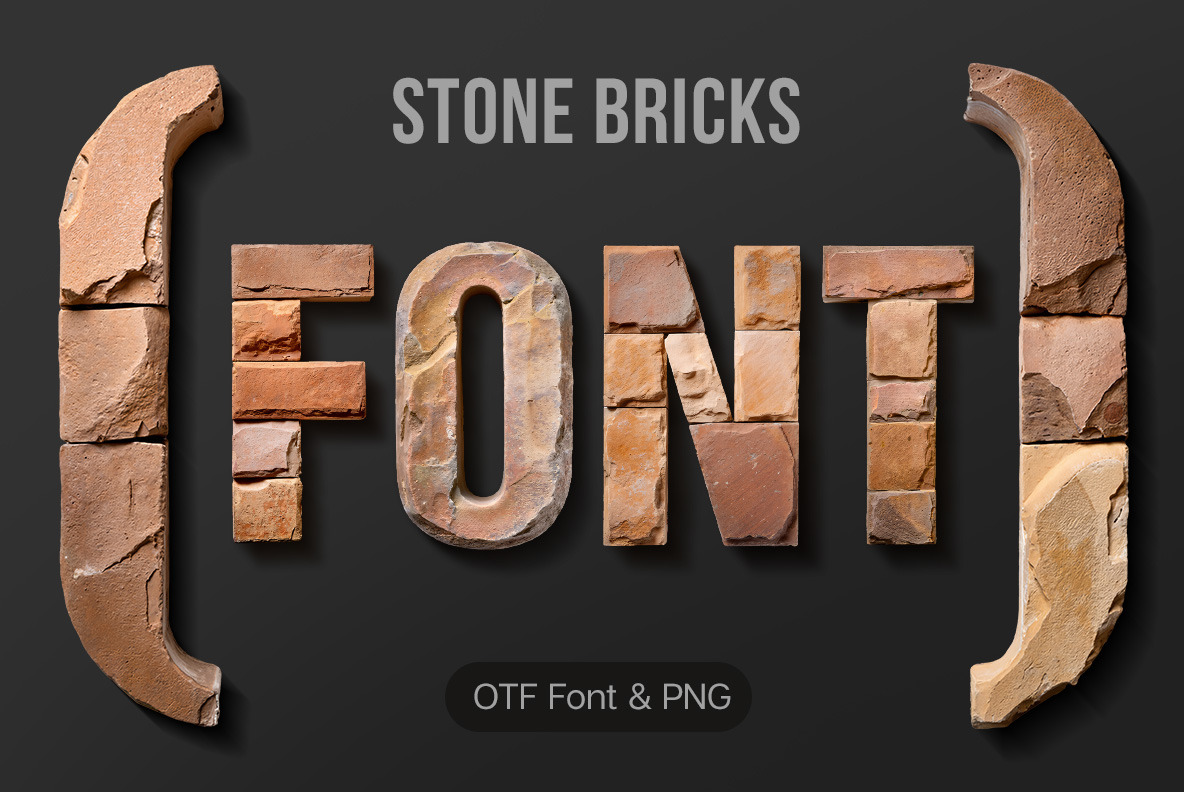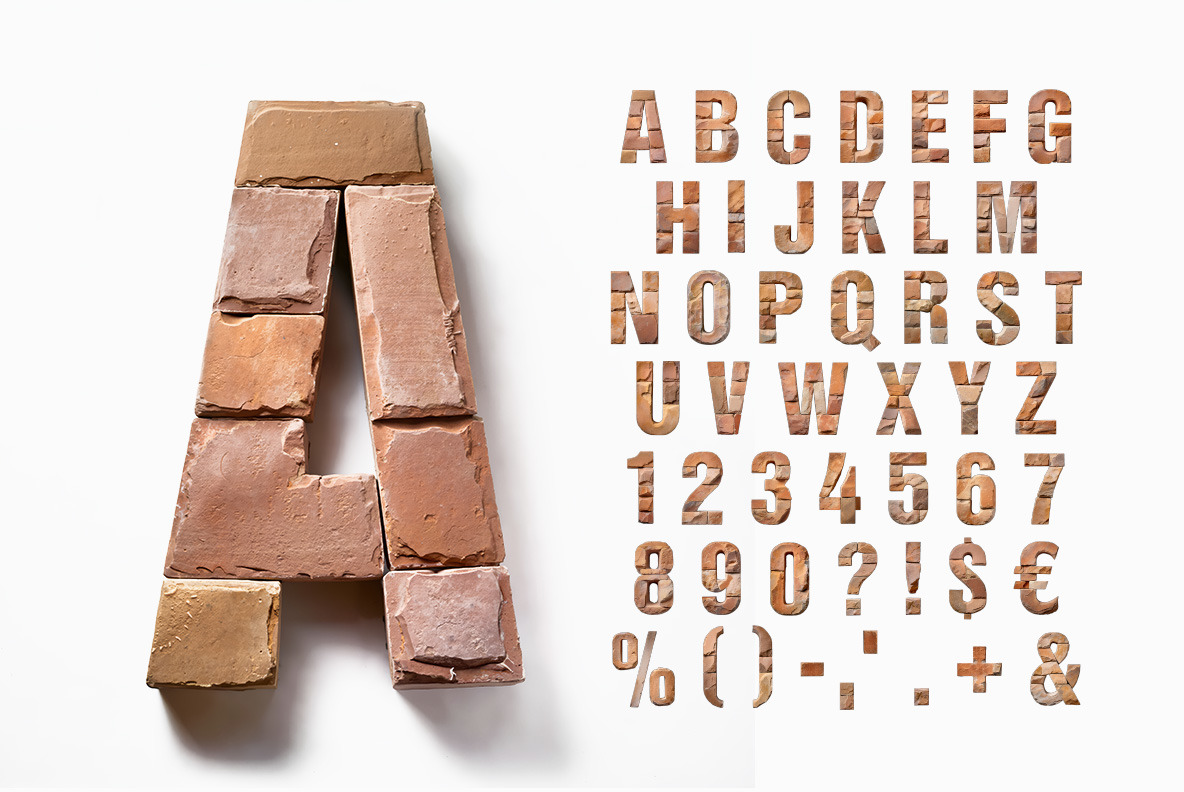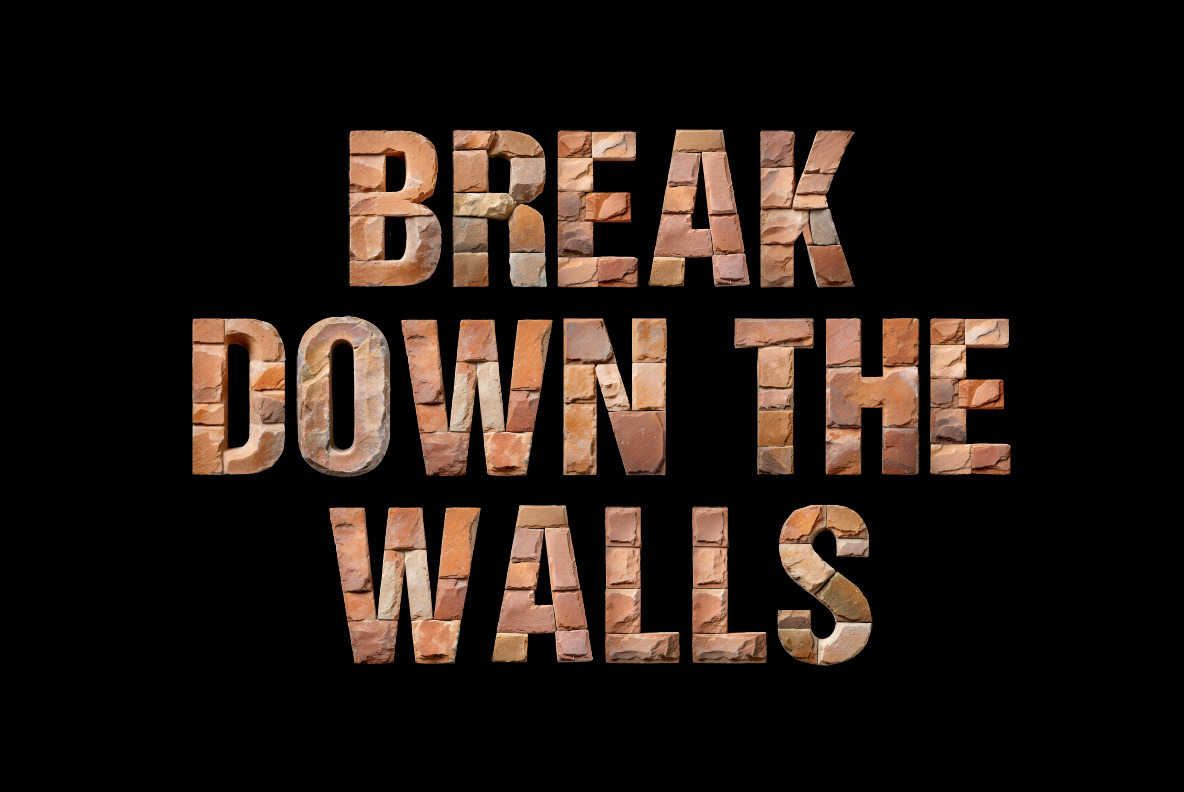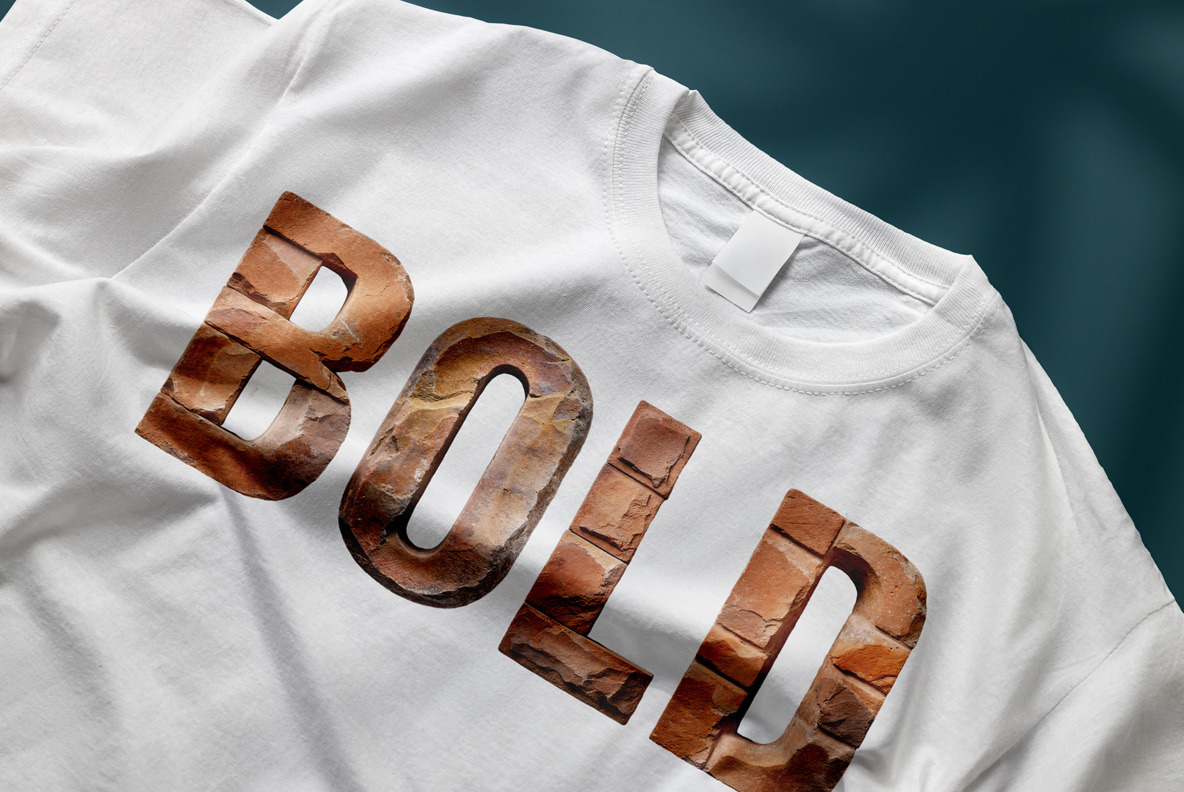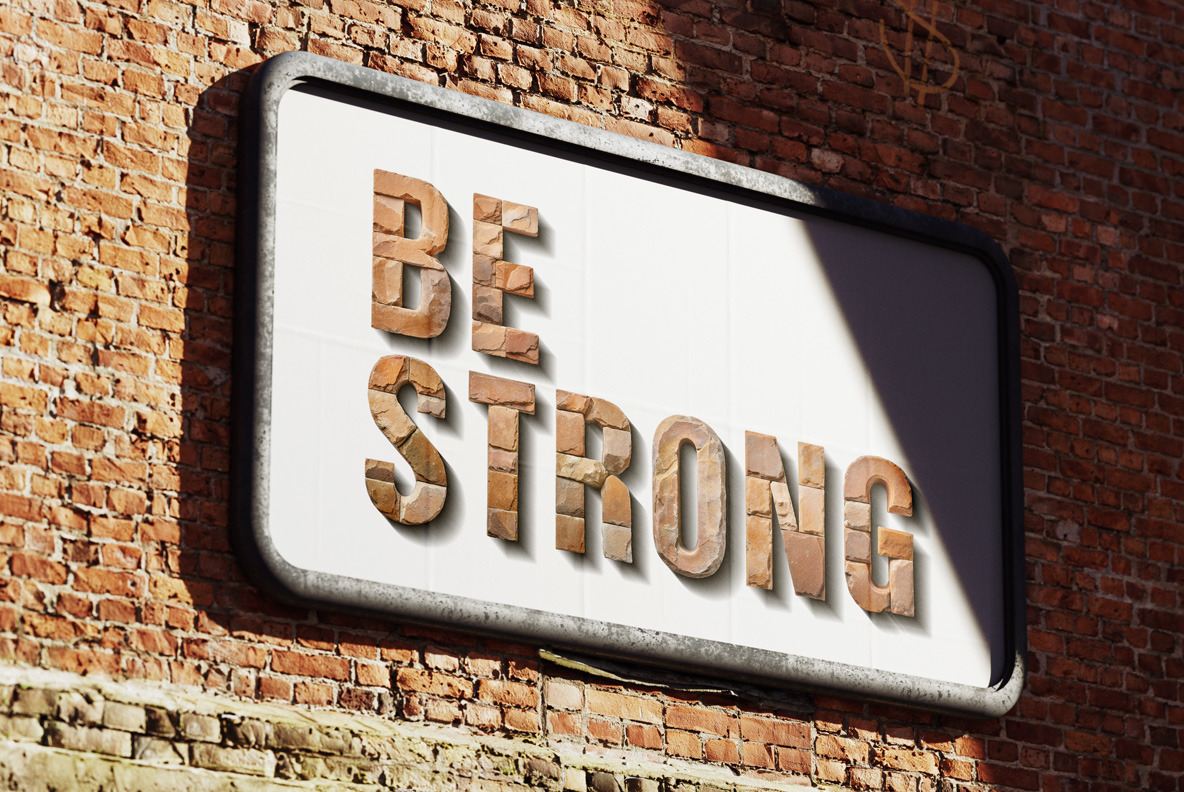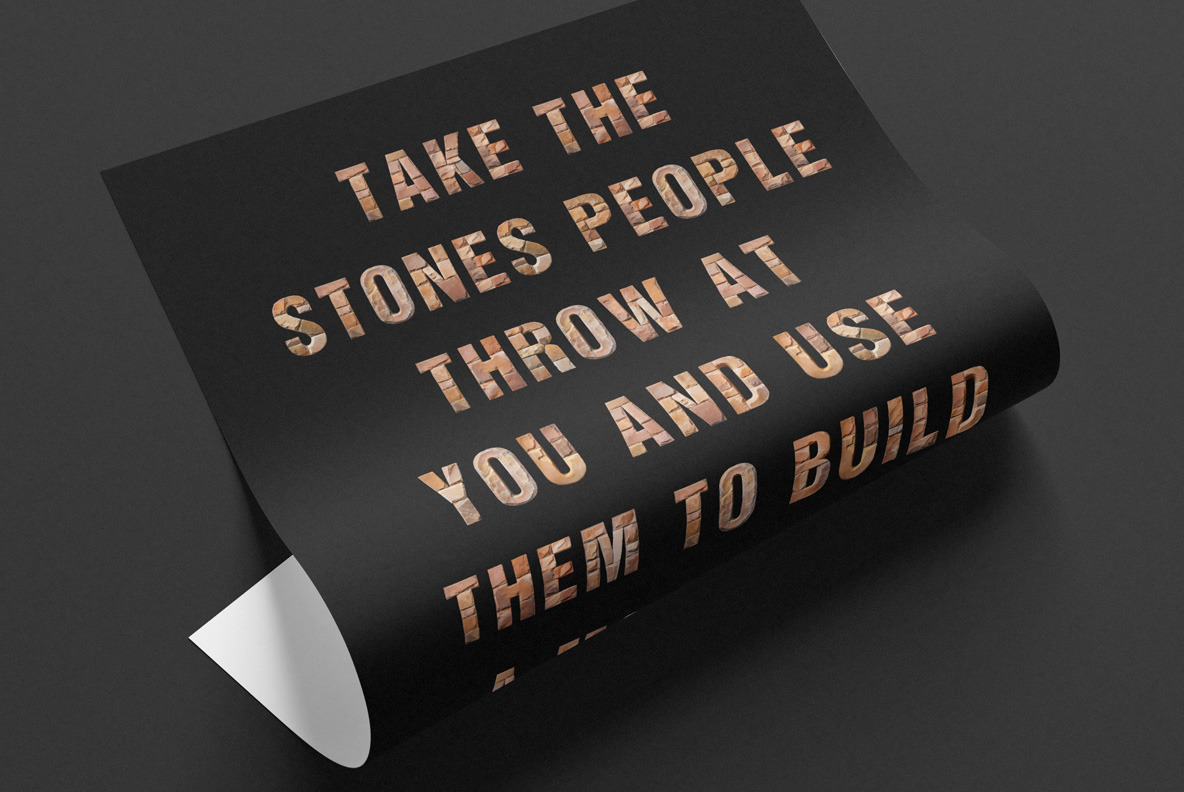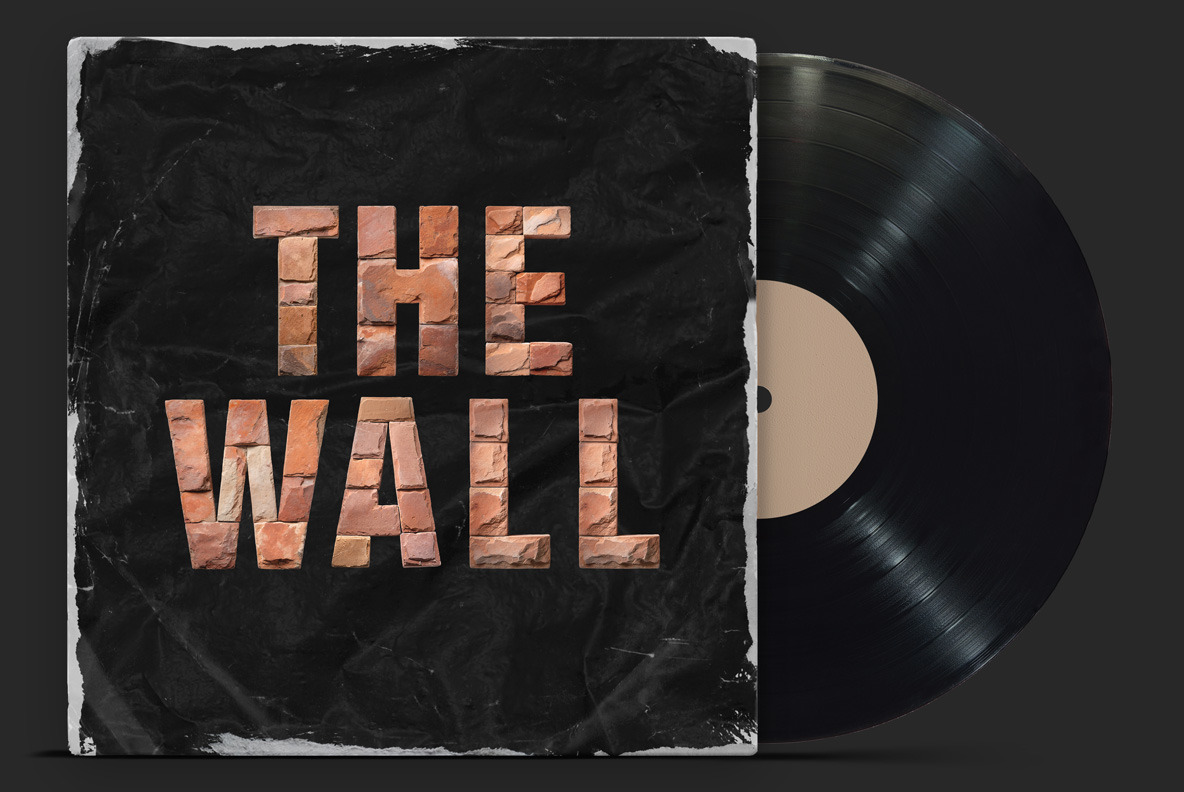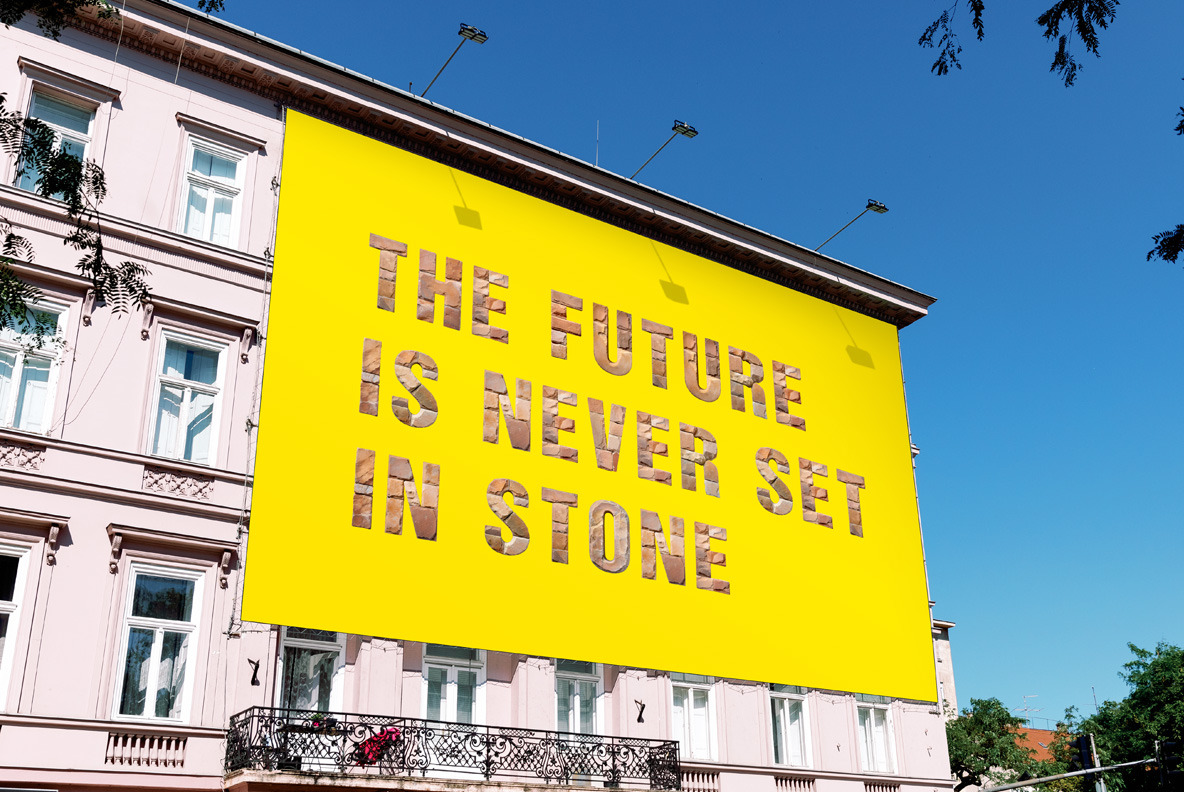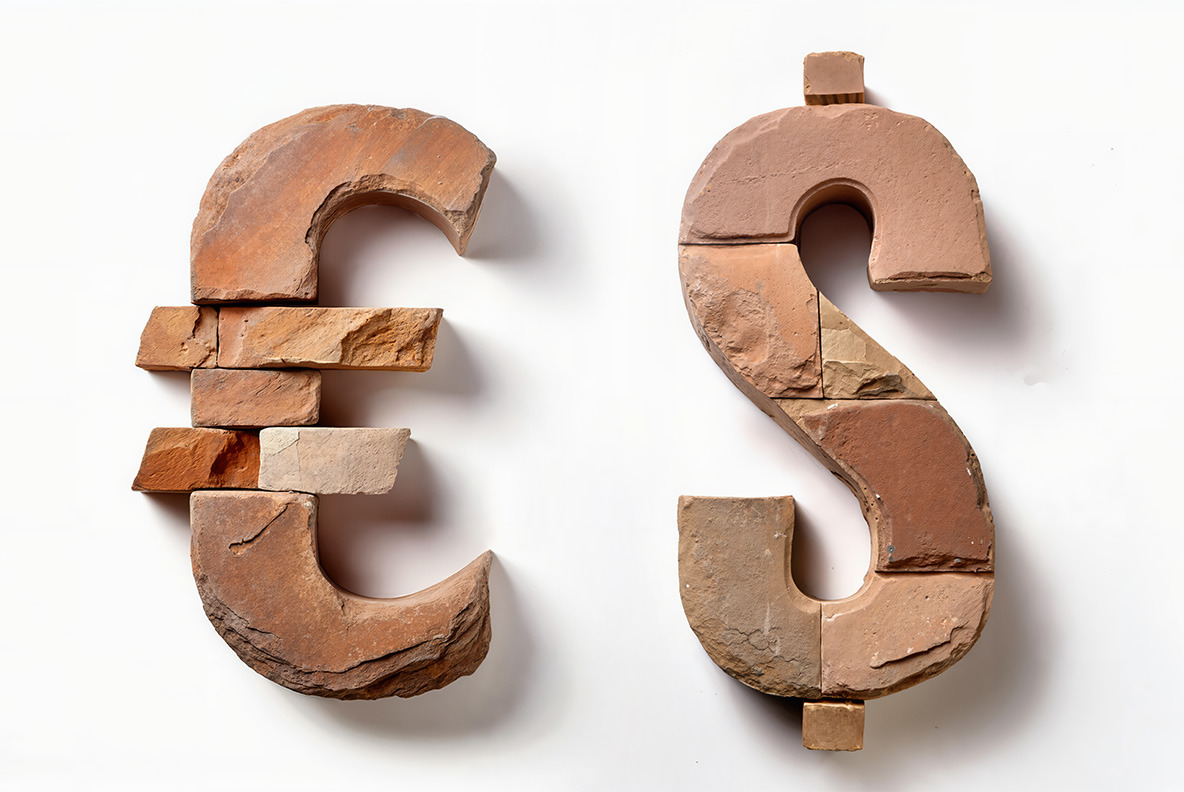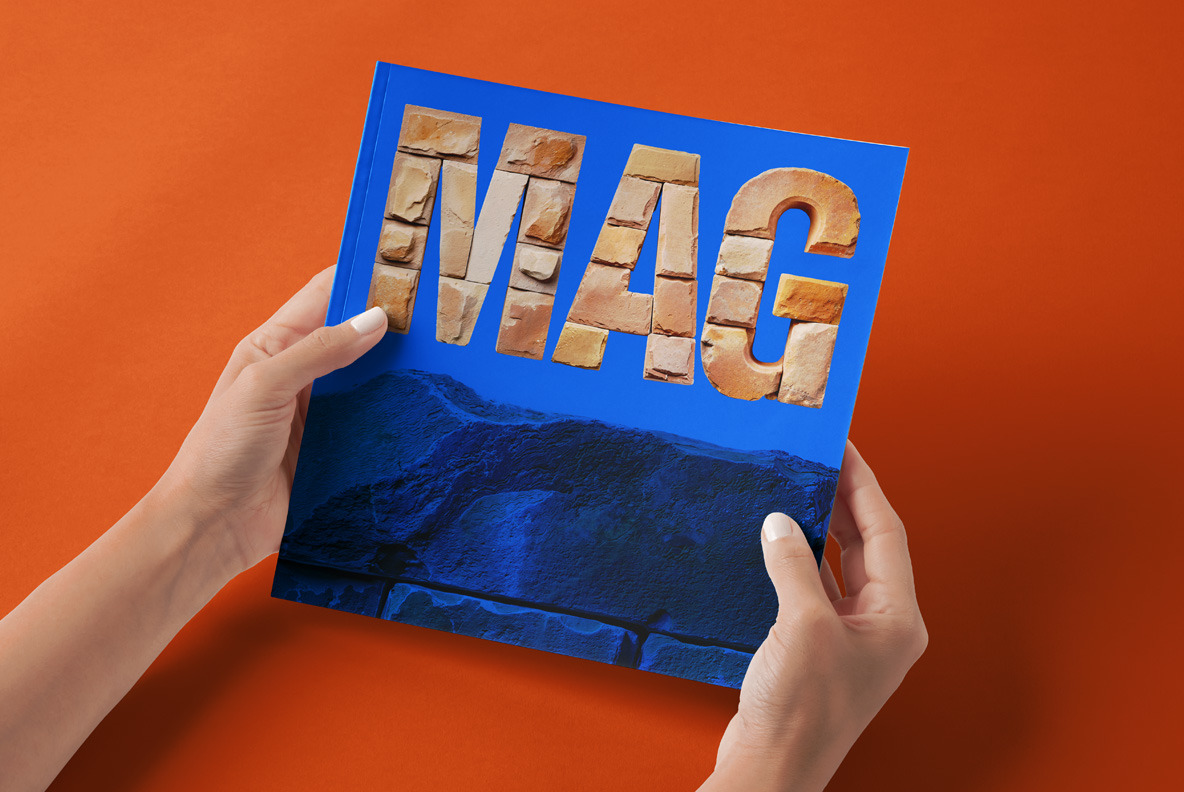
Stone Bricks Font
Strong. That’s the first word that comes to mind when you see the Stone Bricks Font. I mean, it’s literally built out of stone bricks. Every letter looks like it was dragged out of some ancient ruin by an overzealous archaeologist with a flair for typography. The letters are sturdy, unapologetically bold, like they could support the weight of your deepest insecurities.
Of course, it’s creative. Who wouldn’t want their words to look like they're chiseled into the walls of some indestructible fortress? But the layout—oh, don’t get me started. Aligning these blocks is like trying to organize a rock collection. Still, there's something oddly comforting about the strength of it all.
Stone Bricks Font. A high definition OpenType Font. Contains uppercase characters, numerals and basic punctuation. (Draw height roughly 800 pixels). All letters and glyphs that comprises this font you can see on the preview.